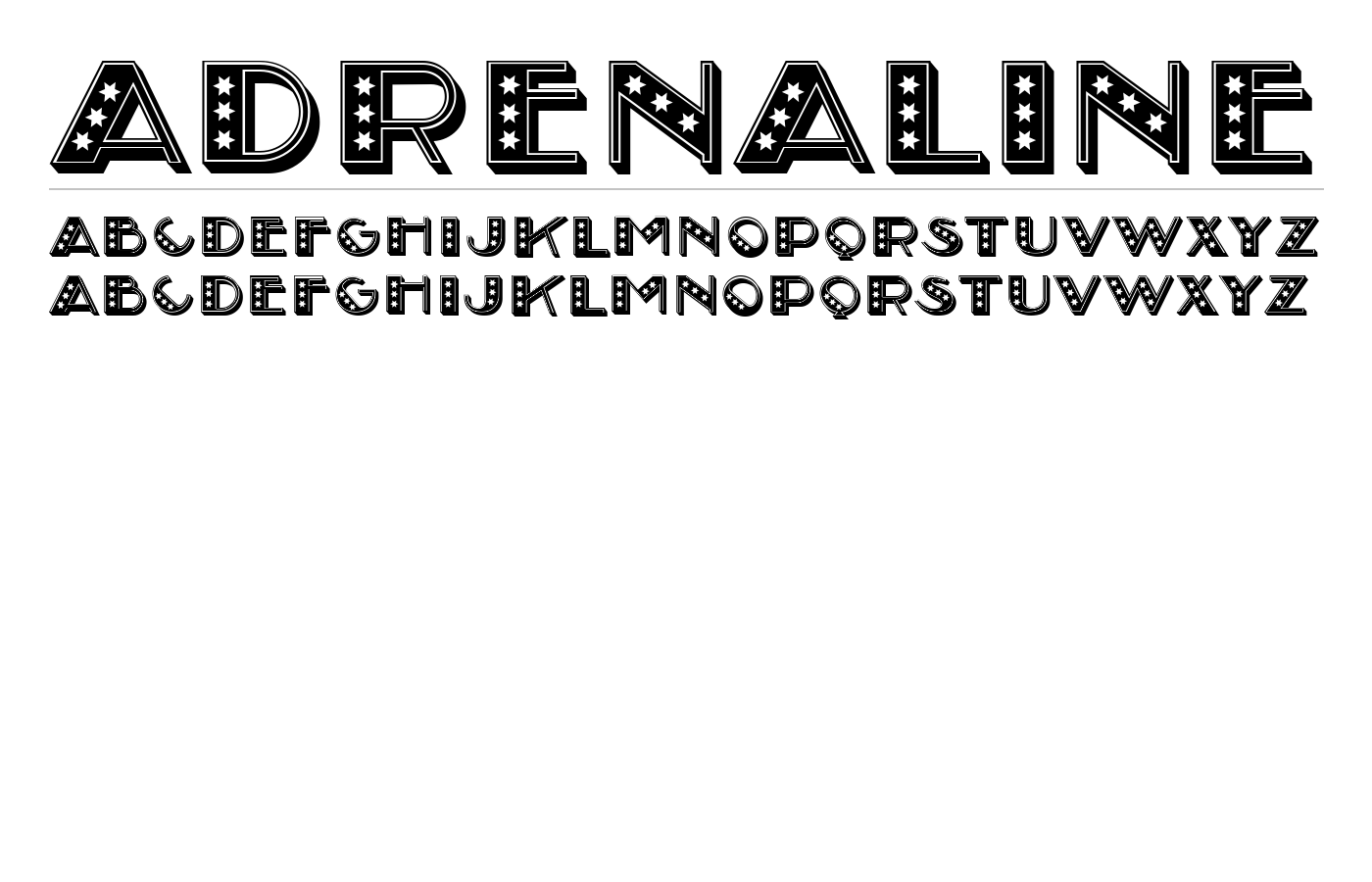
Adrenaline is a bold, decorative sans serif font featuring a dynamic, layered style with star-shaped cutouts and sharp, geometric outlines that create a striking vintage marquee or carnival effect. Its all-caps design and high contrast between solid black shadows and white spaces make it perfect for eye-catching headlines, logos, and posters where a playful yet impactful look is desired. This font brings energy and excitement, making it ideal for entertainment, sports, or event branding.
Adrenaline Font
About Adrenaline Font